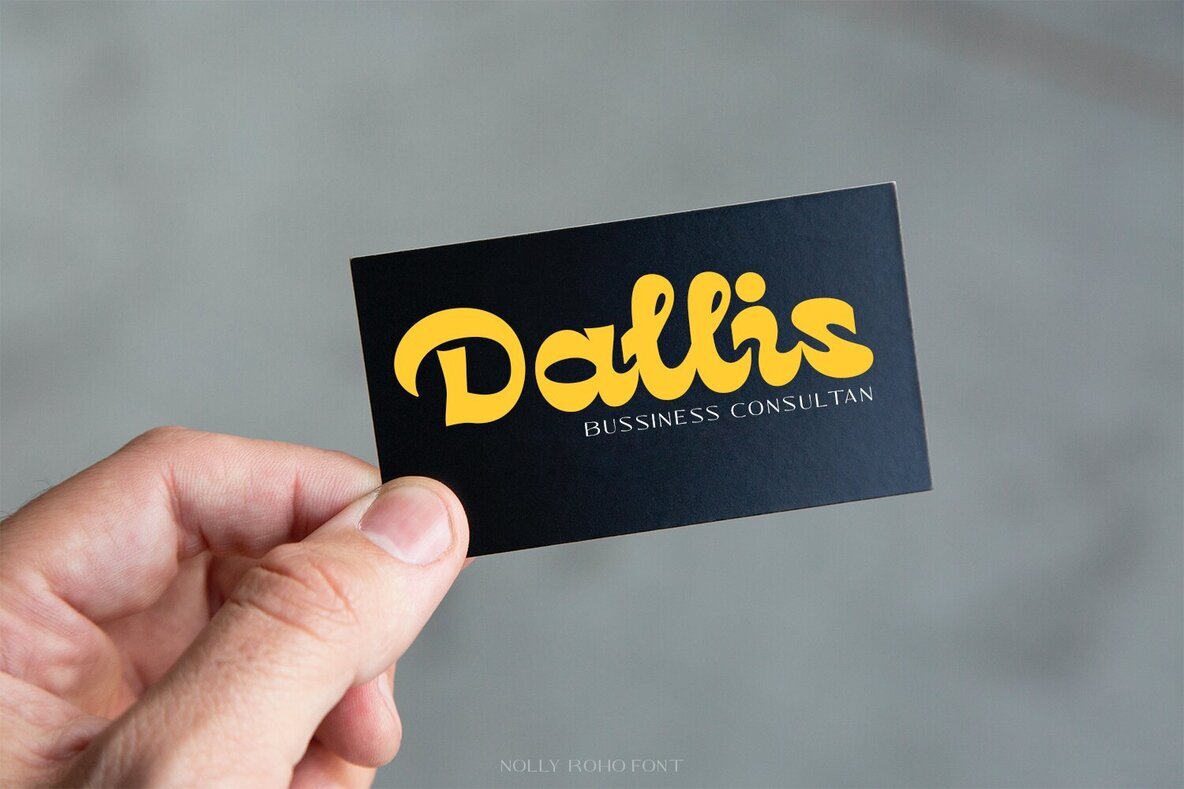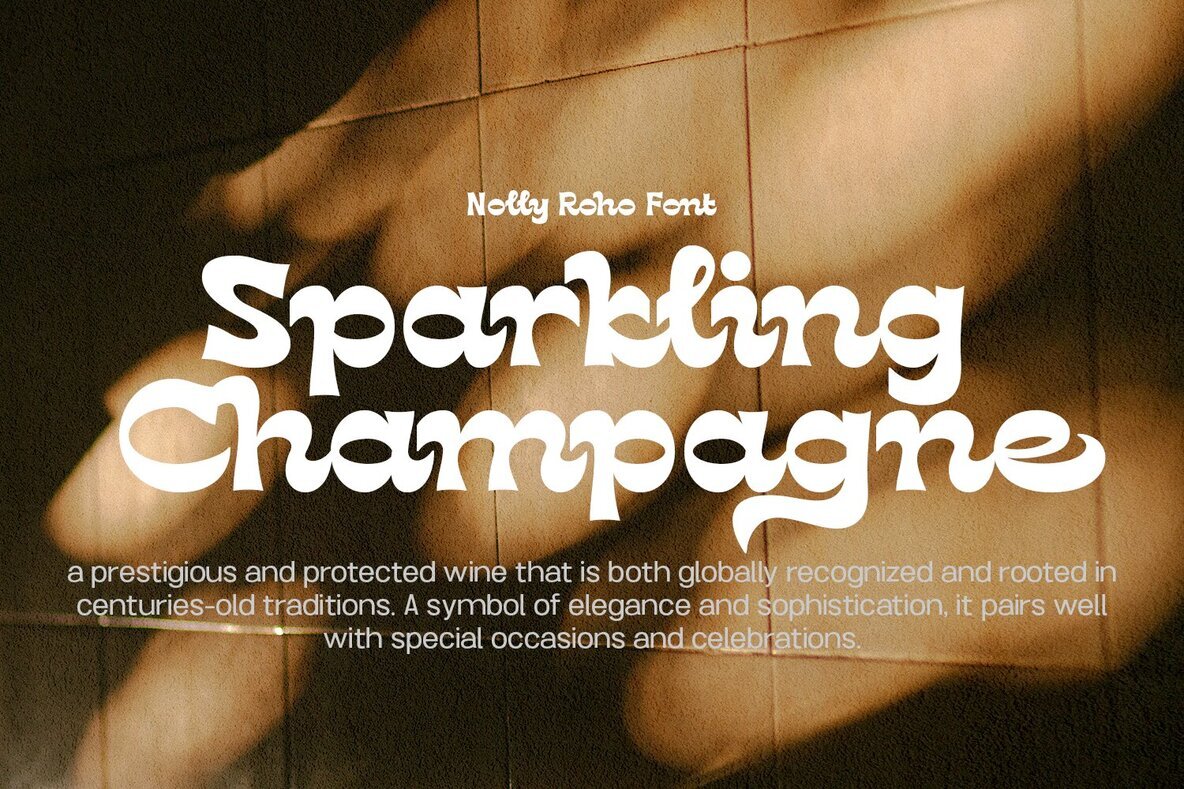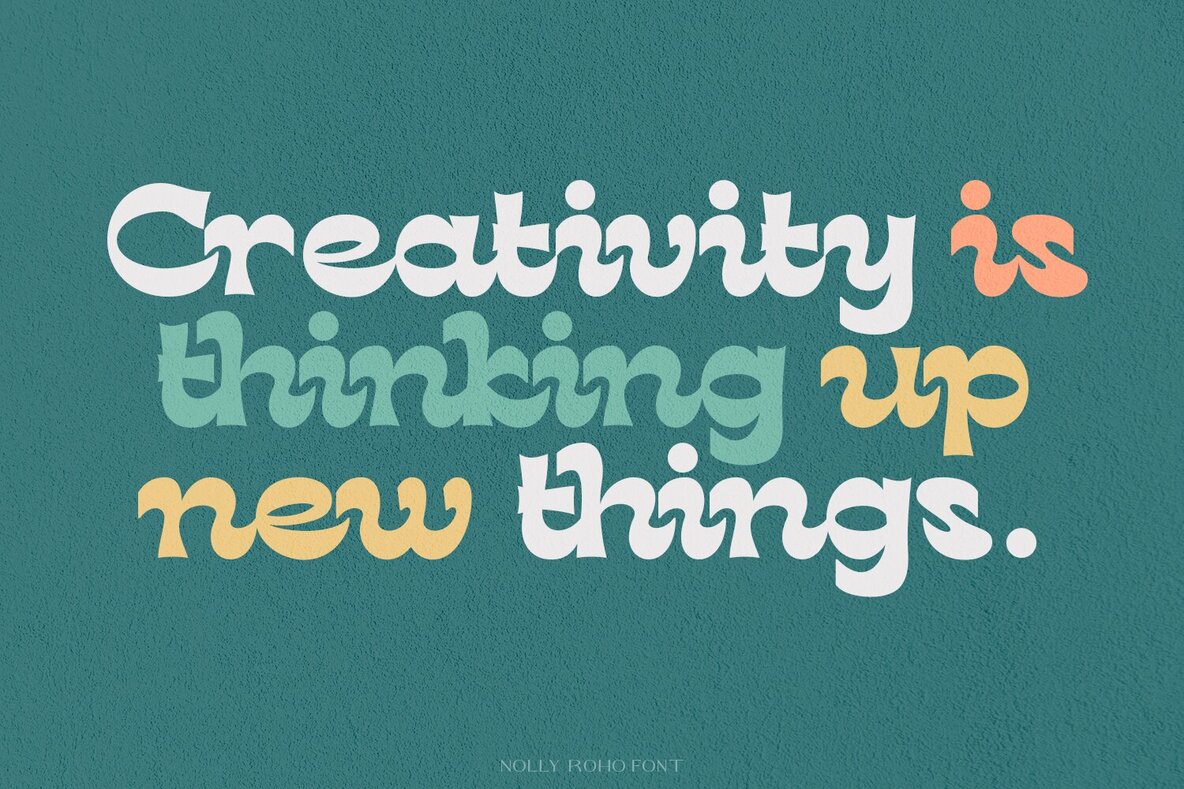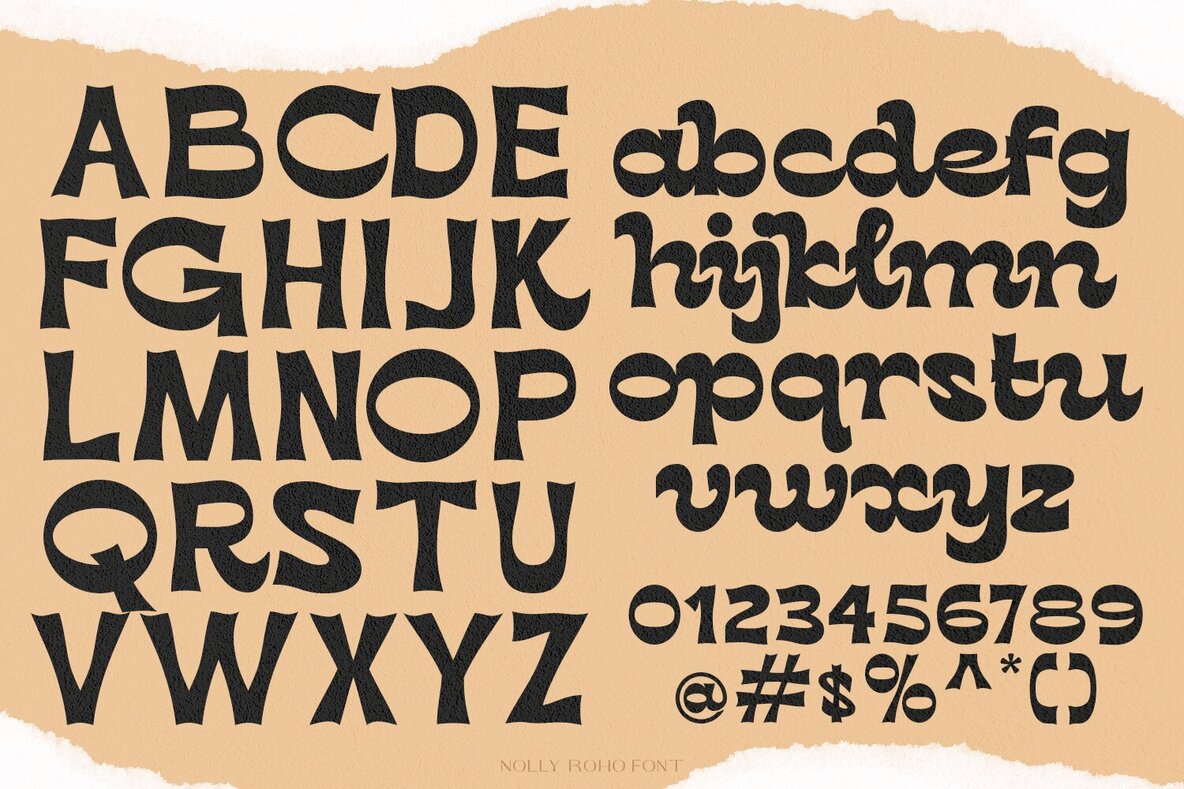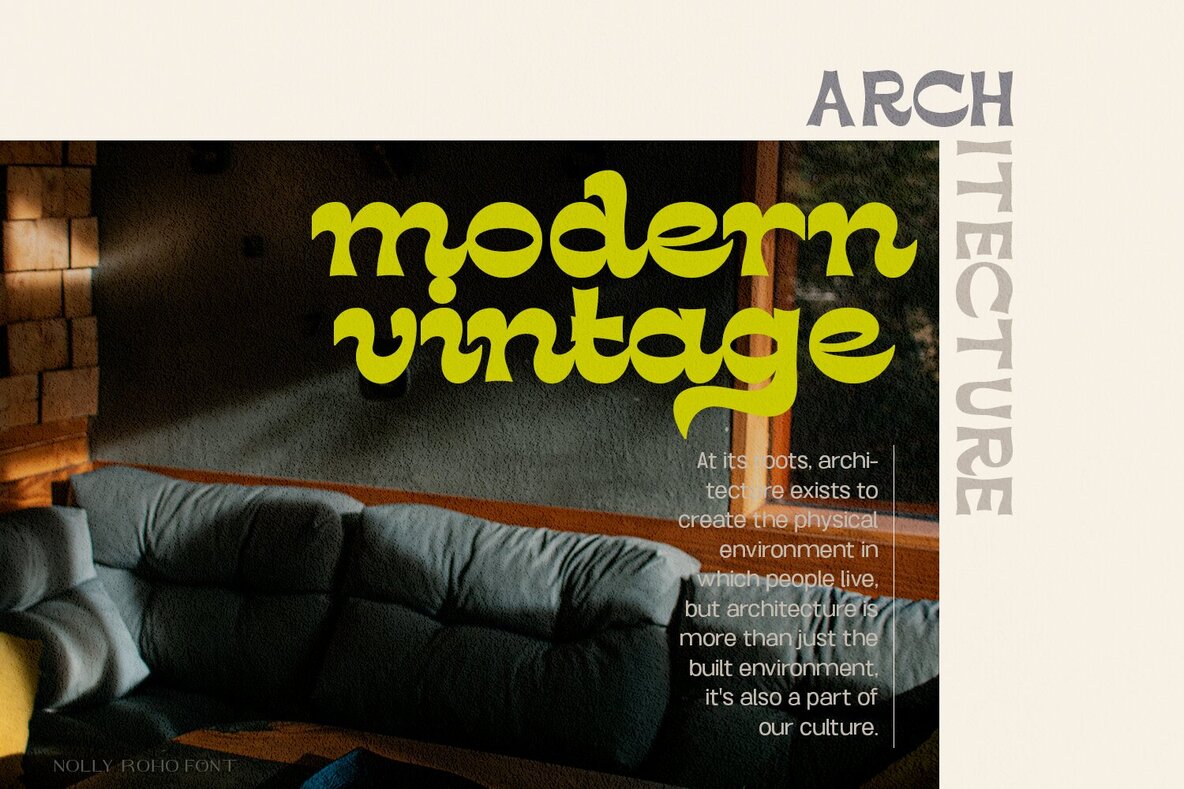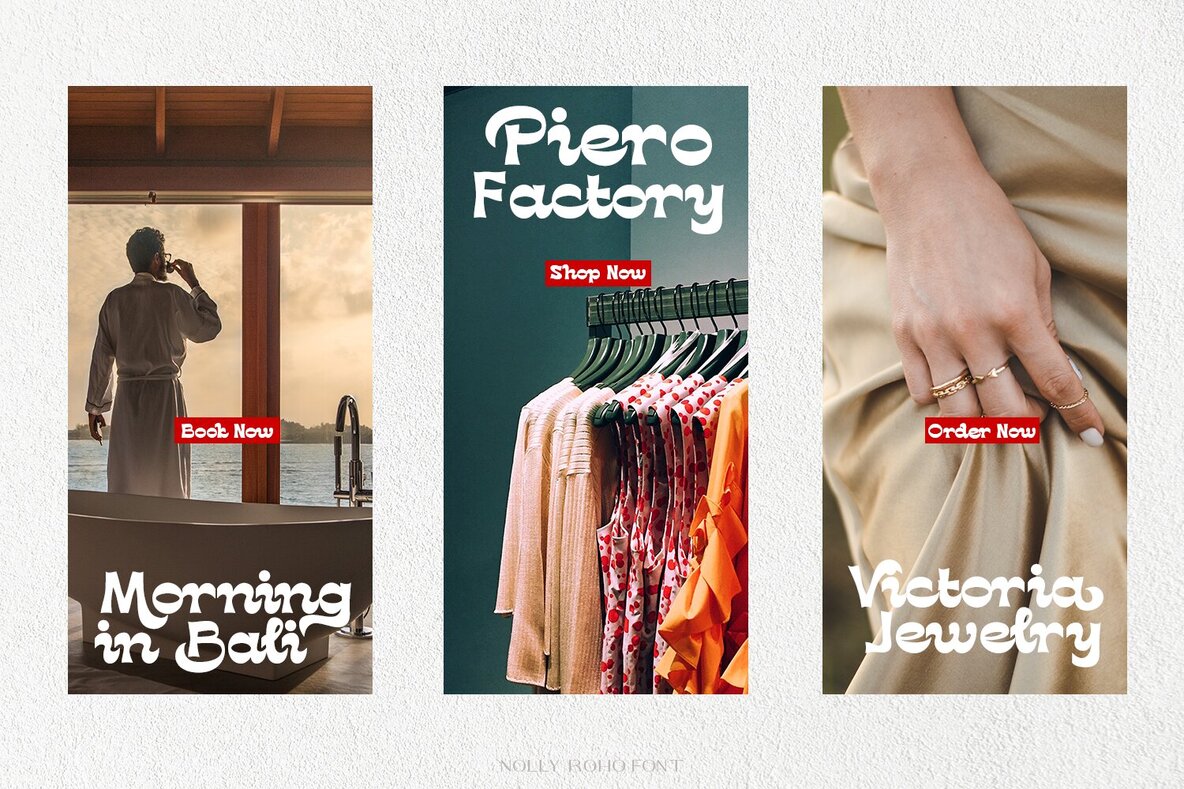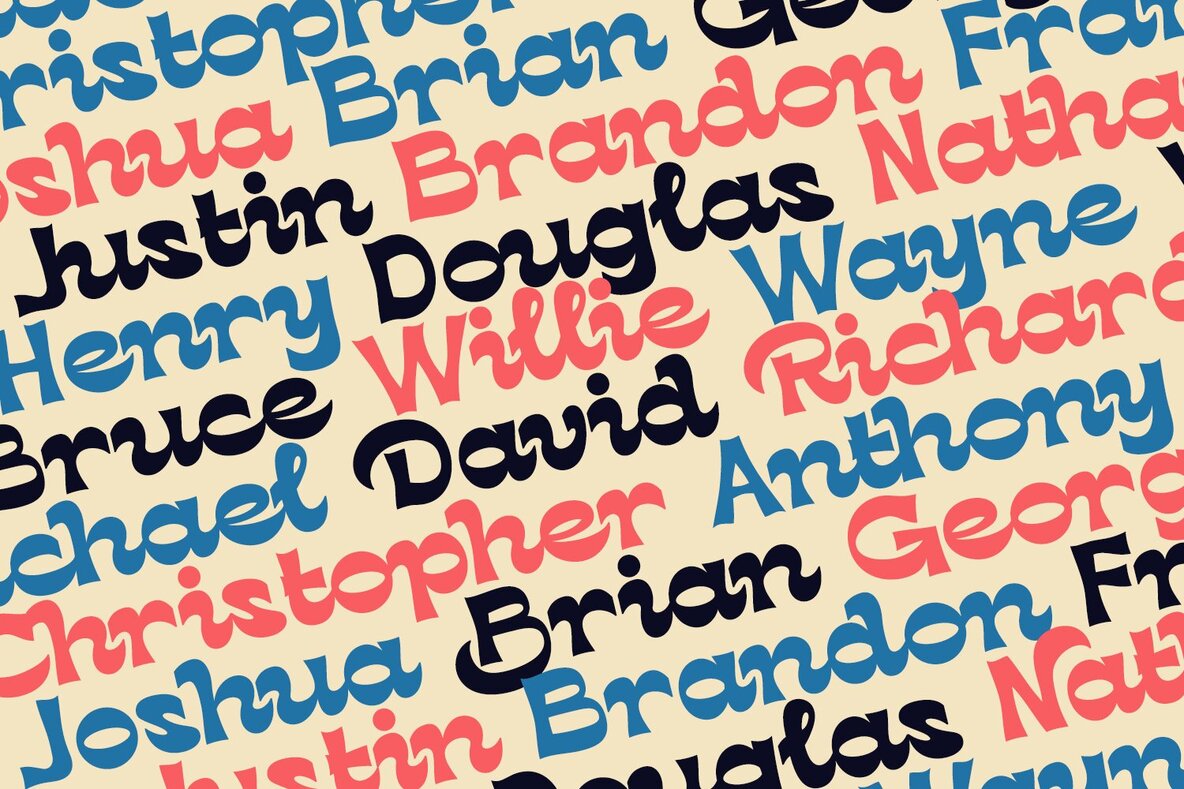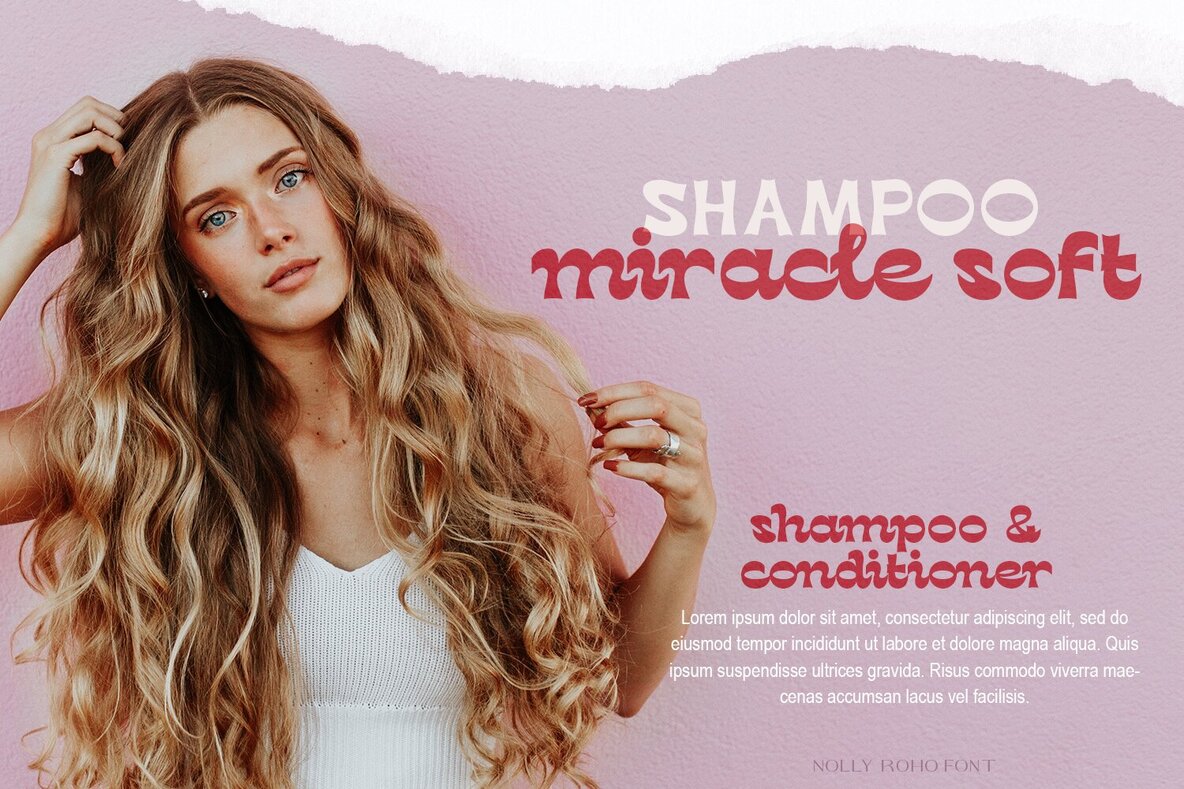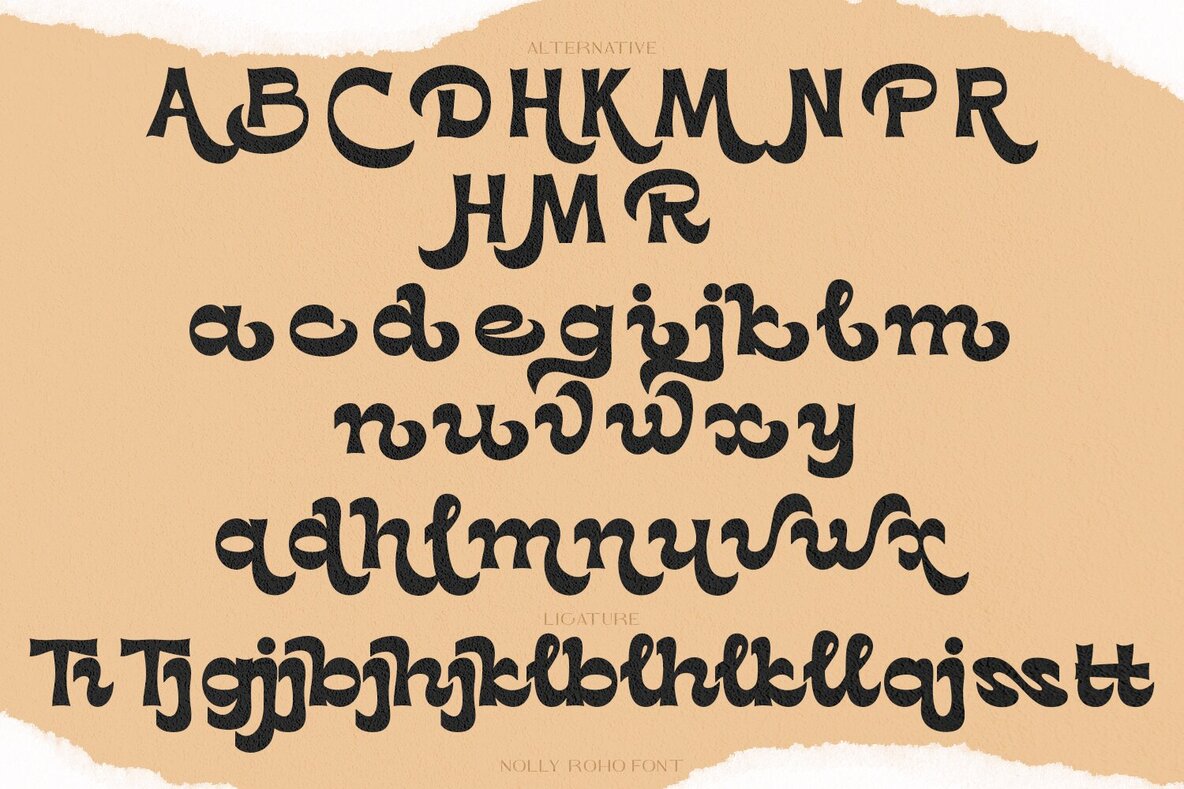
Nolly Roho Font
Nolly Roho
Nolly Roho is a groovy font that embodies the playful spirit of 80s script style. Its refined yet vibrant design allows for exploration and creativity, making it ideal for creating a rhythmic flow that's comfortable to read. This font brings a sense of energy and dynamism to any project, thanks to its bold and whimsical structure. Nolly Roho's groovy 80s script style makes it perfect for:Nolly Roho: A Groovy Font with 80s Script Style
Key Features of Nolly Roho
Ideal for a Variety of Projects